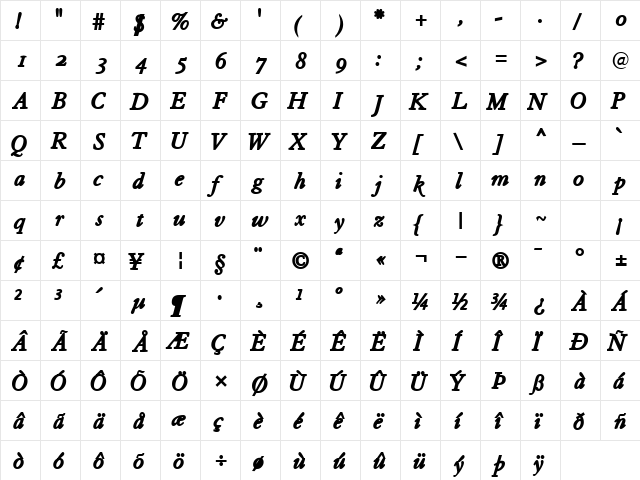
TiascoOSSSK Bold Italic Font Preview
TiascoOSSSK Bold Italic
Design Context for TiascoOSSSK Typeface
TiascoOSSSK is a composed and adaptable typeface that performs quietly and consistently across a wide range of design contexts. The slanted form adds forward momentum and visual energy. Its bold stroke weight gives it real presence on the page.
Pro Tip: Try TiascoOSSSK for annotation and caption copy alongside an upright companion — the contrast in angle creates a dynamic but ordered typographic system.